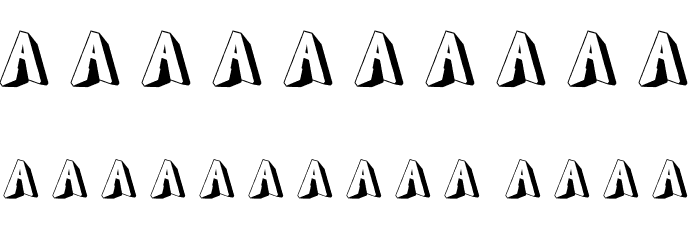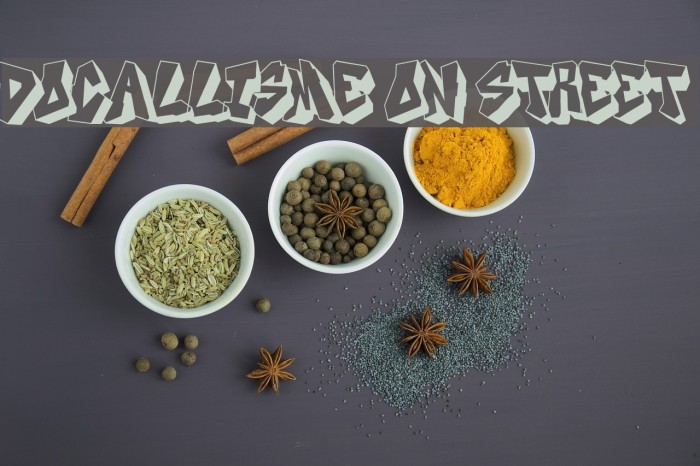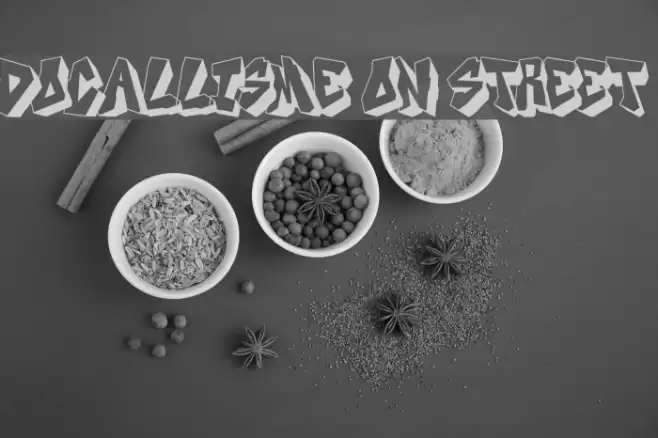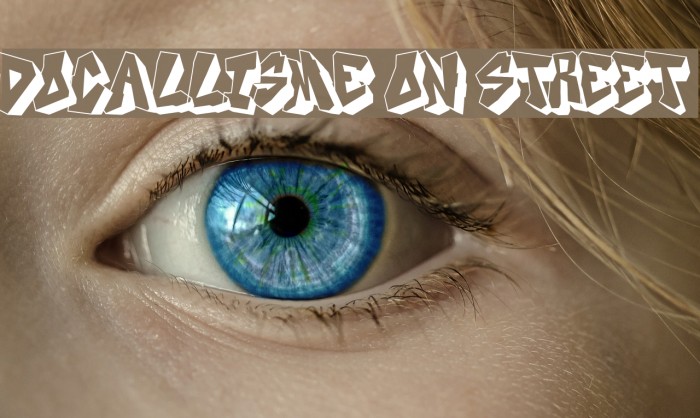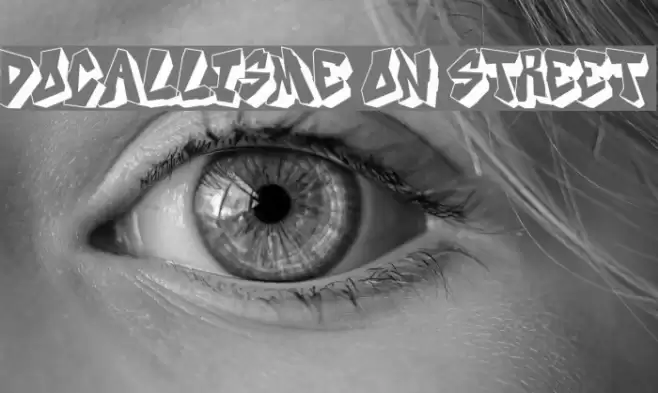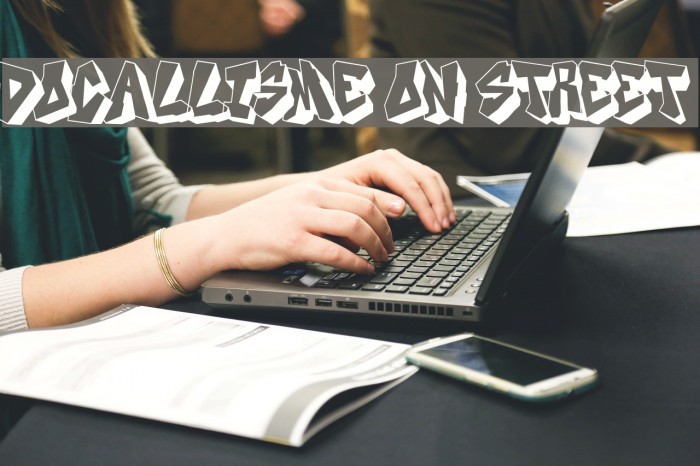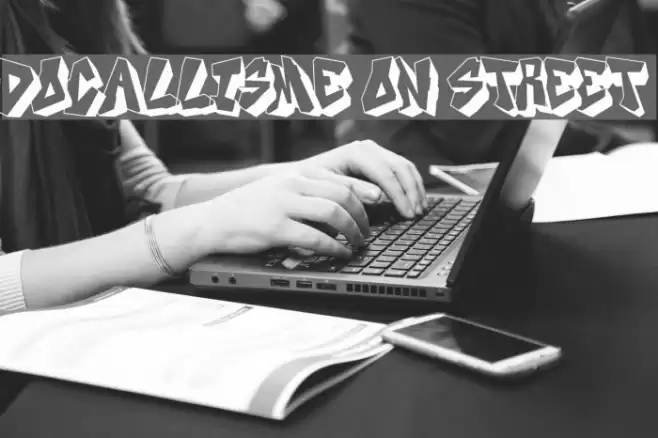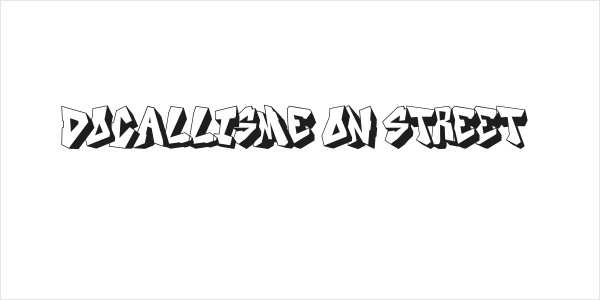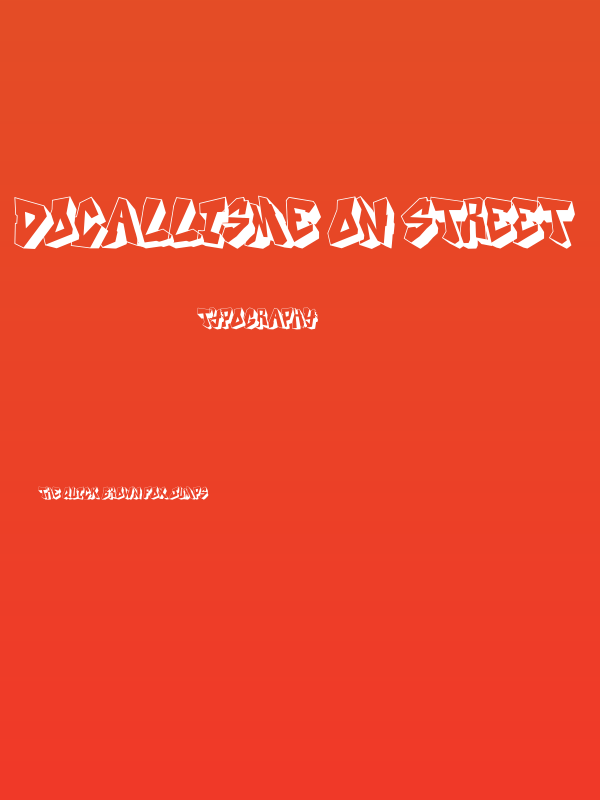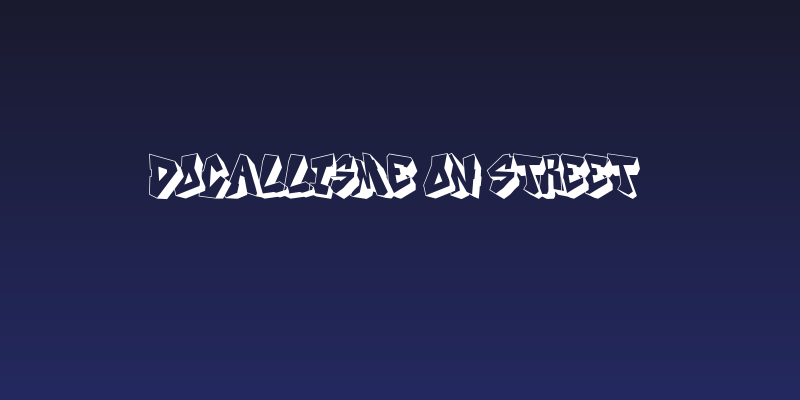
DOCALLISME ON STREET Font
DOCALLISME ON STREET Description
This font features a bold, graffiti-inspired style with a three-dimensional effect. The letters are angular and dynamic, with sharp edges and a sense of movement. The shadowing adds depth, making the characters pop off the surface. It's designed to capture attention with its urban and edgy aesthetic, perfect for projects that require a street art vibe. The uppercase letters are consistent in their boldness, while the absence of lowercase and special characters suggests a focus on impactful headlines or titles.
| Overall Style | Modern, Urban |
| Proposed Projects | Ideal for street art designs, urban-themed posters, music album covers, and edgy branding projects. |